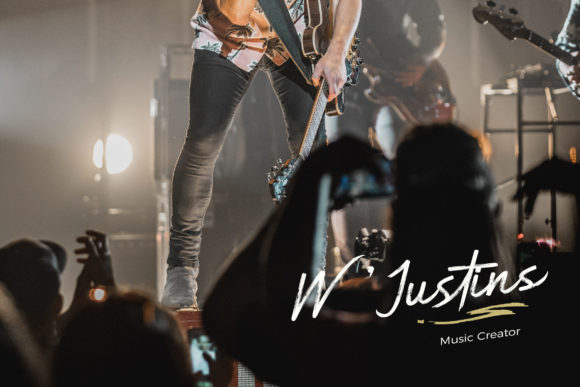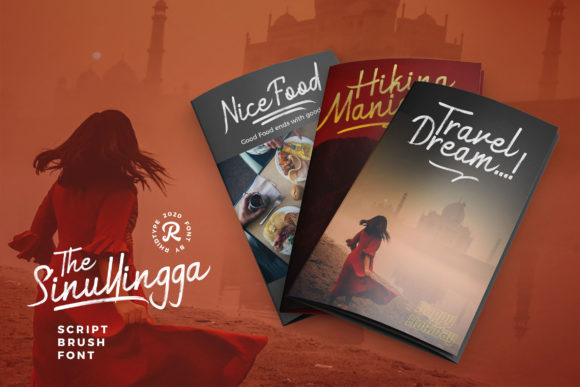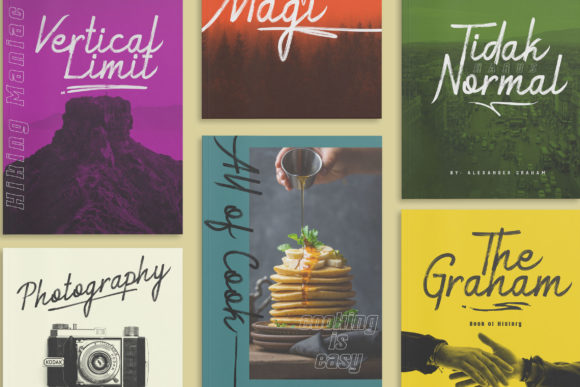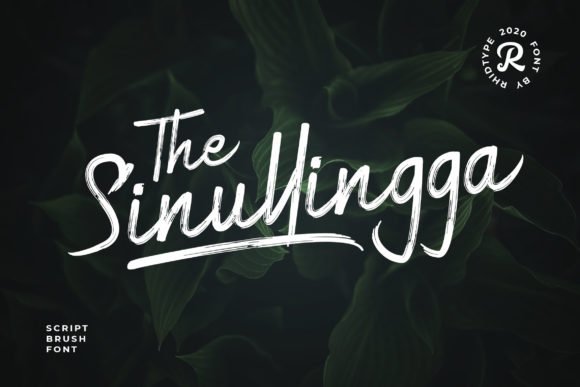
Introduction to Sinullingga Font
Sinullingga is a lovely, brushed handwritten font.
No matter the topic, this font will be an incredibly asset to your fonts’ library, as it has the potential to elevate any creation .
Key Features of Sinullingga Font